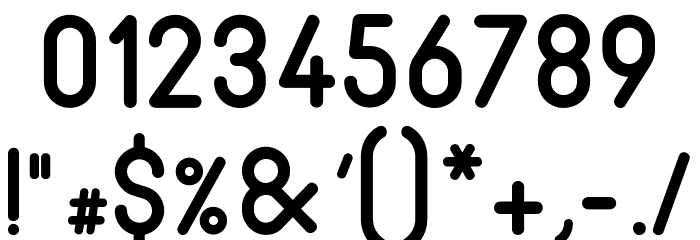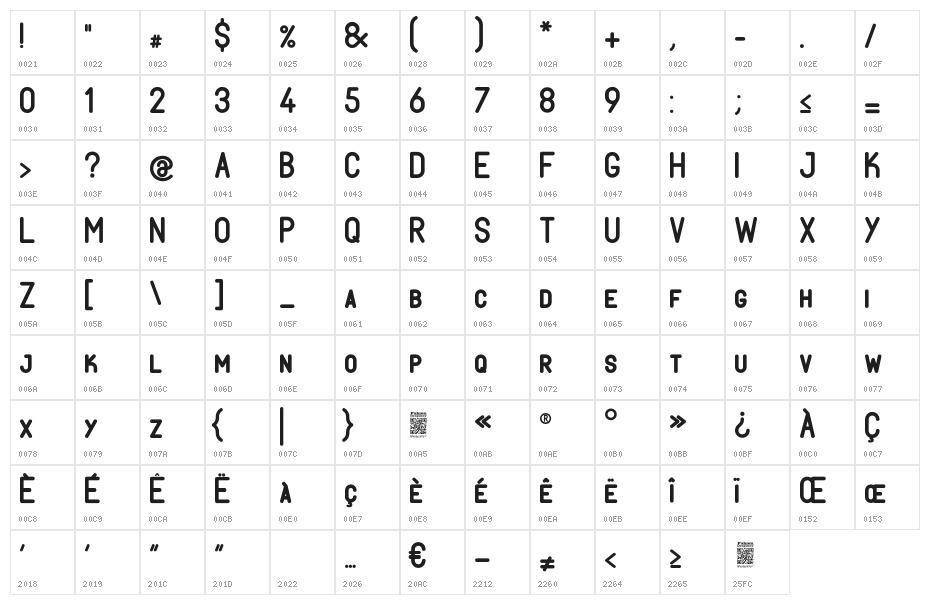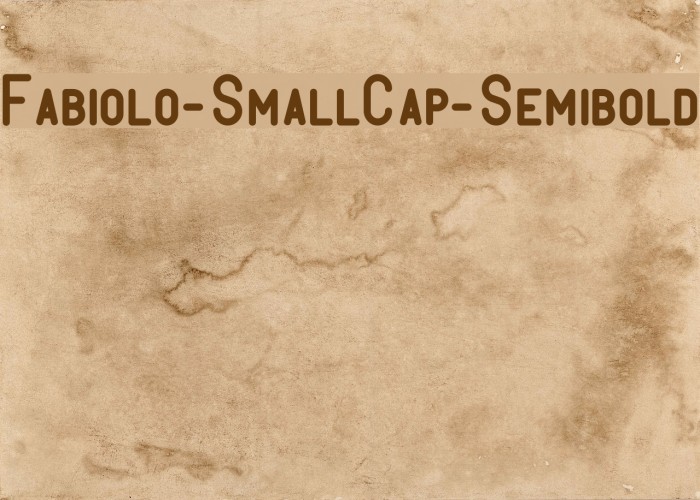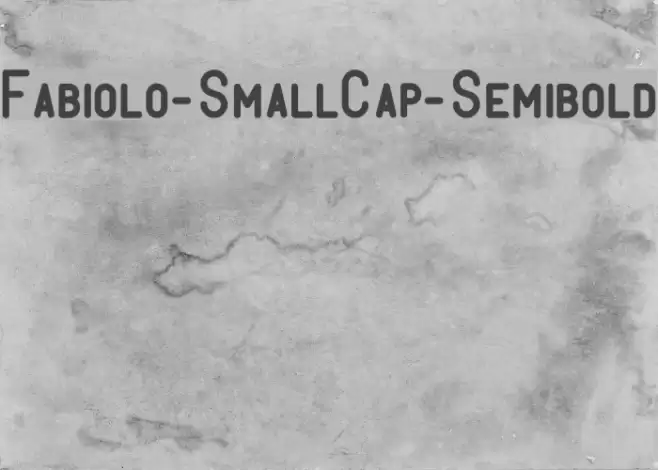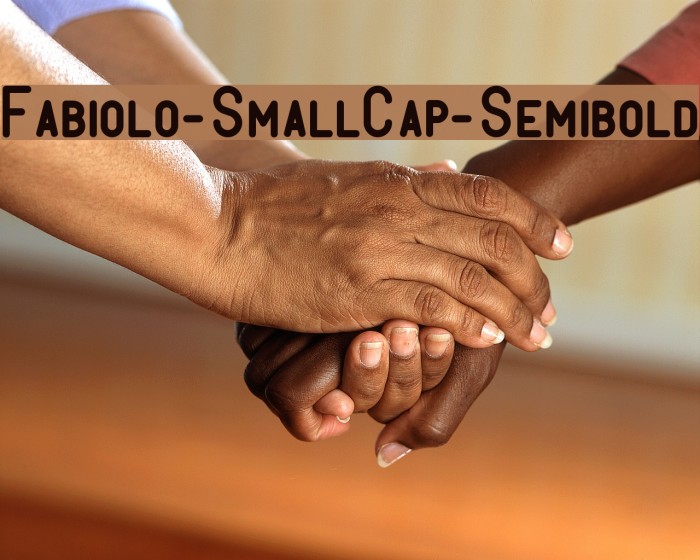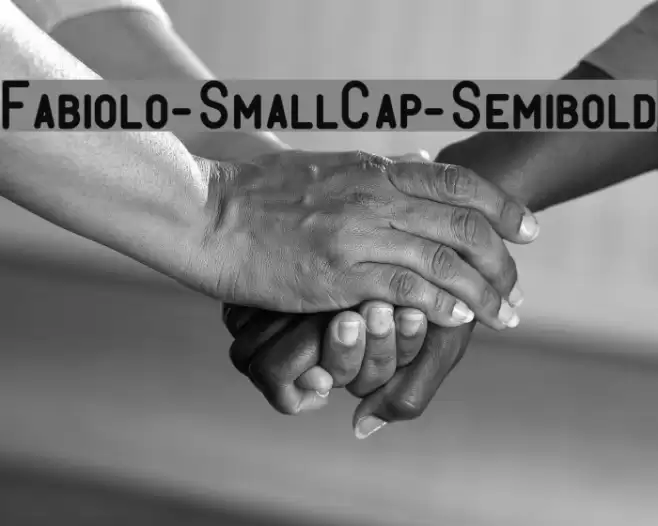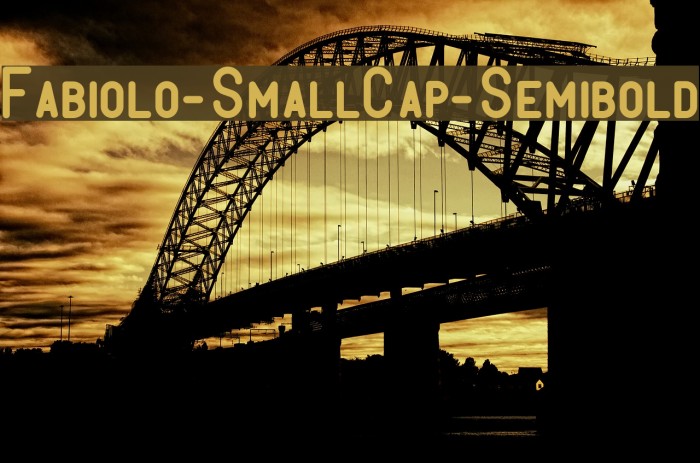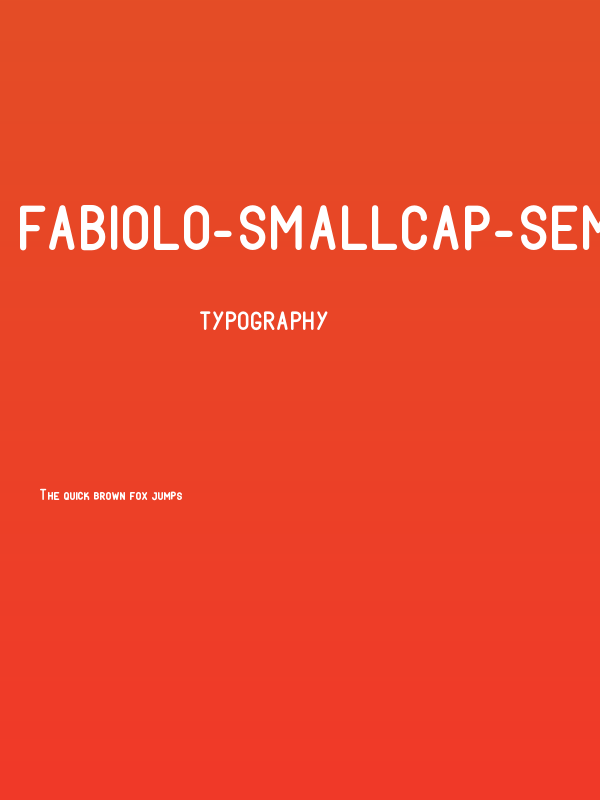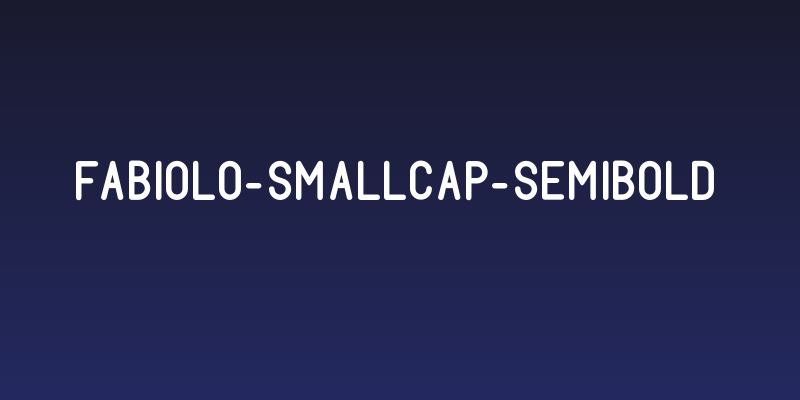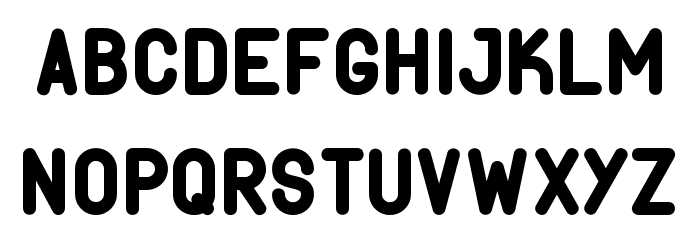
Fabiolo-SmallCap-Semibold Font
Fabiolo-SmallCap-Semibold Description
This font features a bold and rounded sans-serif style, characterized by its uniform stroke width and clean, modern appearance. The uppercase letters are prominent and well-defined, while the lowercase letters maintain a consistent height, offering a cohesive look. The numerals are clear and legible, making them suitable for various applications. Special characters are included, adding versatility to the font. The overall design is straightforward yet impactful, making it ideal for attention-grabbing headlines and branding.
| Proposed Projects | Ideal for branding, headlines, posters, and digital media where a strong, modern presence is required. |